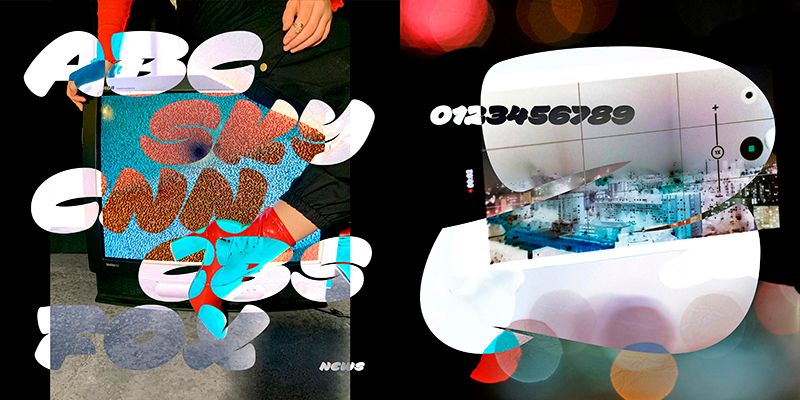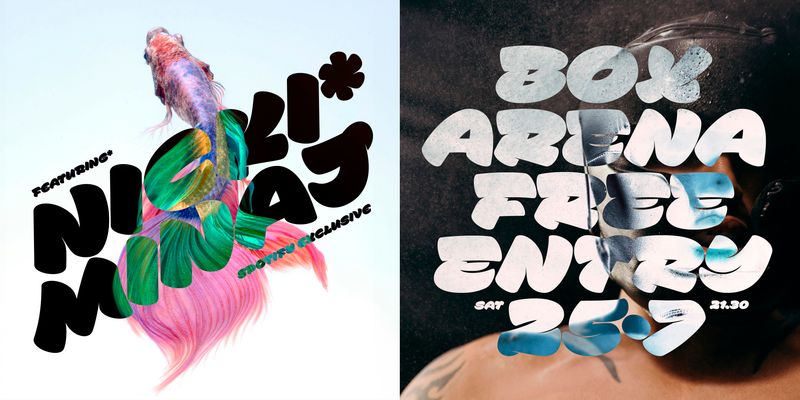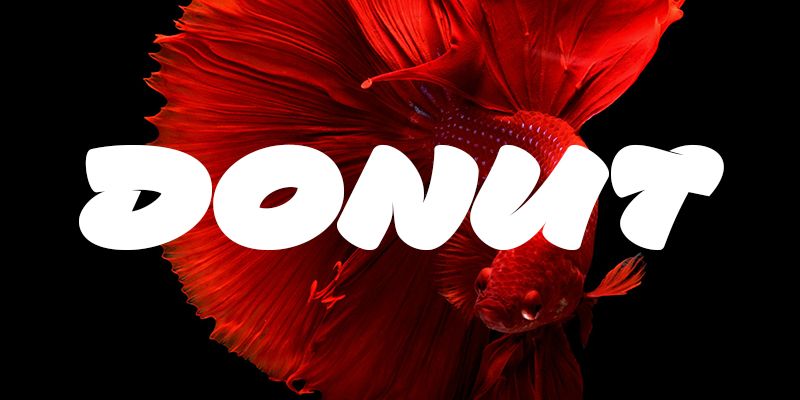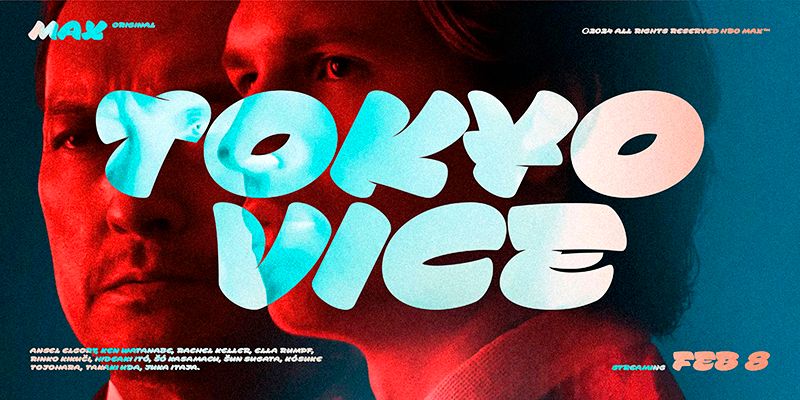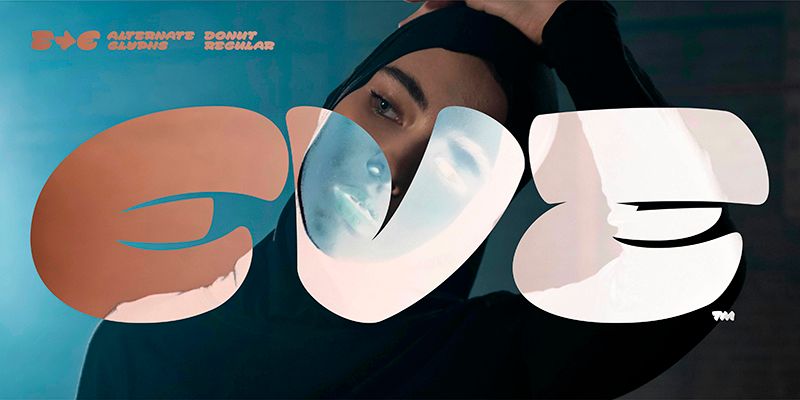
Craving a bold typeface? Glaze your designs with Donut! This display script packs a punch with its heavy strokes and compact design.
I wanted the characters to be as wide and compact as possible, and make the letters fit nicely close to each other. I tried to get as much mass into the individual letter’s bounding box and squeeze the stems as close as possible, similar to, e.g. Klimax (Setup Type), Baseliner (Briefcase Type Foundry), or Corpulent (Suitcase Type Foundry). Donut’s dark ductus is enhanced by the tight spacing, where the letters bump into each other or overlaps, leaving only tiny gaps between them. The small triangles that act as false ink traps are a striking detail to aid the complicated legibility. This detail also appears in all characters, such as #?&%, etc.. The diacritics are partially recessed into individual glyphs, yet clear. Donut is a simple uppercase script typeface without unnecessary complexity supplemented with a minimum of OpenType features.